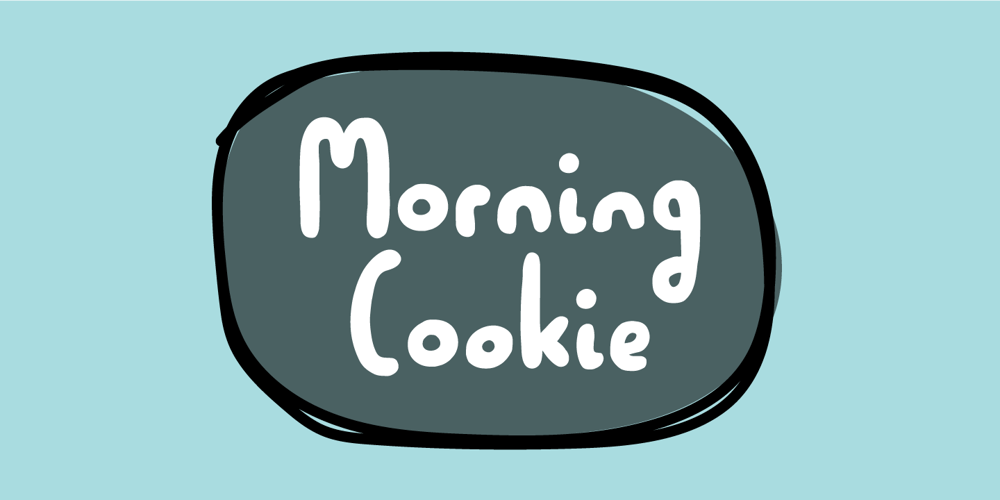
Morning Cookie
Morning Cookie font
Morning Cookie Font Family was designed by Jakob Fischer and published by Bogstav. Morning Cookie contains 2 styles and family package options. Yet again, a font inspired by my work as a kindergarten teacher!The other day, I had a conversation with some of the kids, about what they ate for breakfast. Some had oatmeal, some bread and others yogurt. But this kid – he insisted that every morning, his mother would serve him cookies, “morning cookies”. It sounded too good to be true, and when I asked his mother, it turned out that “cookies” were actually bread, but to make it sound more appetising, they called it cookies!The letters are rounded and in some way quite naive, but still clear and legible. With an extreme ascender and descender, the font stands out with its oddities. I’ve added 3 different versions of each lowercase letter!